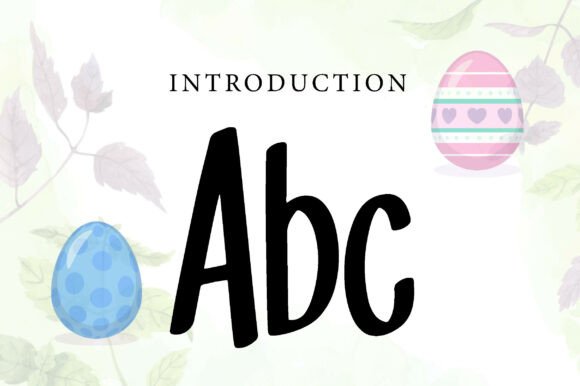
Introduction to Pretty Easter Font
Remember the moment when you stumble upon a font that perfectly captures the essence of your creative project? For designers, this moment is pure magic. It’s the moment when your ideas come alive, and your design takes on a whole new level of personality. For me, that moment happened when I discovered the Pretty Easter Font. This charming handwritten font is a design resource that brings joy, warmth, and a festive feel to any project.
With its smooth strokes, rounded shapes, and friendly letterforms, the Pretty Easter Font creates a soft and playful look that feels perfect for spring and holiday themes. Whether you’re designing Easter greeting cards, spring invitations, or product packaging, this font helps your typography feel more expressive, fresh, and memorable.
Key Features of Pretty Easter Font
- High-quality, unique Easter-themed design perfect for creative projects.
- Includes a range of characters, including uppercase and lowercase letters, numbers, and special characters.
Honest Review: Pretty Easter Font
As a designer, I’m always on the lookout for unique and high-quality design resources to enhance my creative projects. Recently, I stumbled upon the Pretty Easter Font, and I must say, it’s a delightful addition to any Easter-themed design.
Here are some things that work well with this font:
- ✨ The font’s playful, whimsical design makes it perfect for Easter cards, invitations, and other spring-themed projects.
- ⚠️ The font is specifically designed for Easter-themed projects, which might limit its use in other contexts.
- ⚠️ Some users might find the font’s design a bit too cutesy or over-the-top for certain projects.
Overall, I’m impressed with the Pretty Easter Font’s design and functionality. It’s a great resource for designers working on Easter-themed projects, and its free download option makes it an attractive choice for those on a budget. Just be mindful of its limitations, and you’ll be well on your way to creating beautiful Easter designs.
The Pretty Easter Font is commonly used in designs for Easter, Spring, and baby shower invitations, cards, and decorations. It’s also used in designs for food bloggers, crafters, and other creative professionals who want to add a touch of whimsy and fun to their designs.